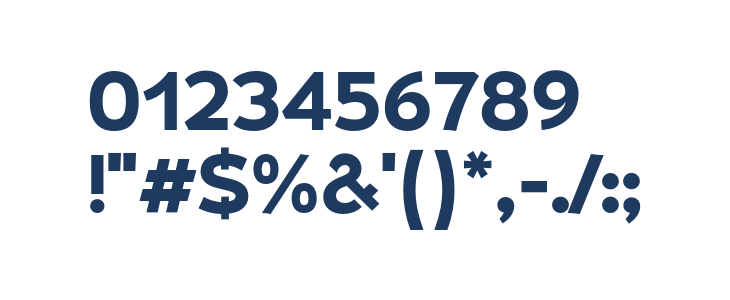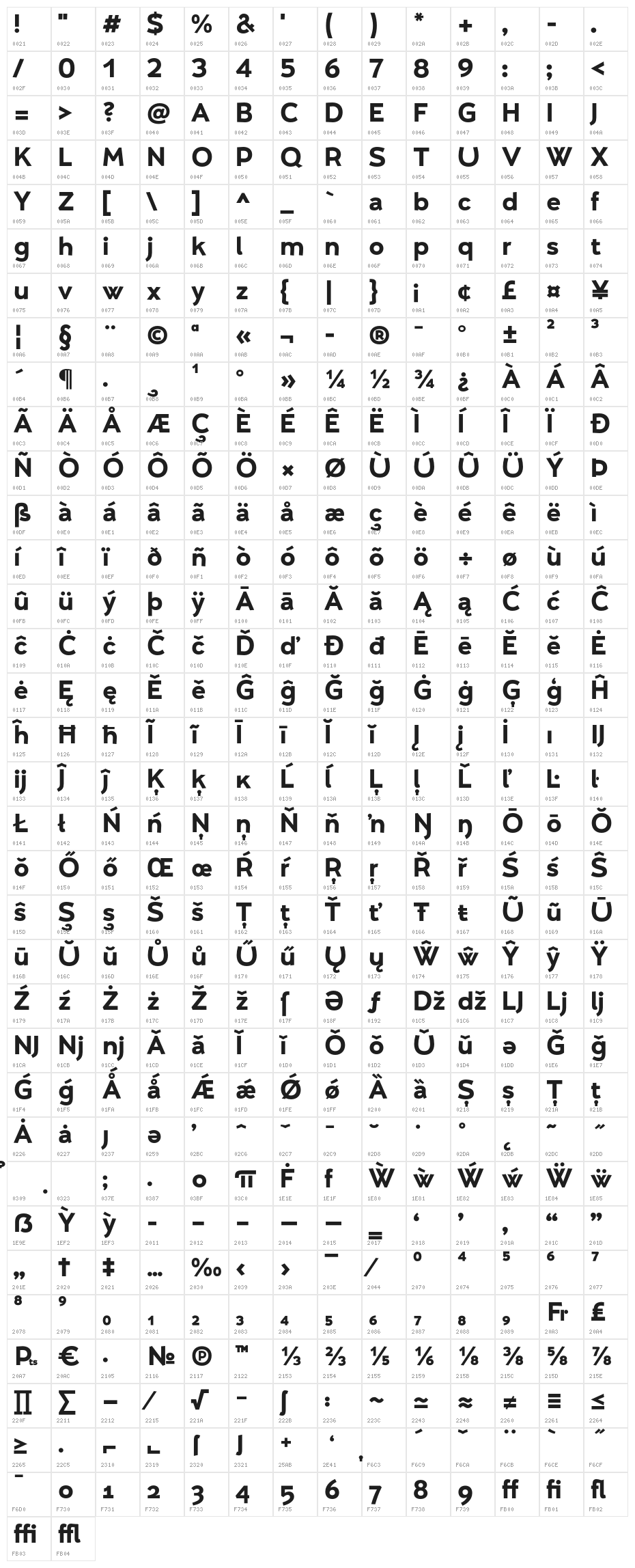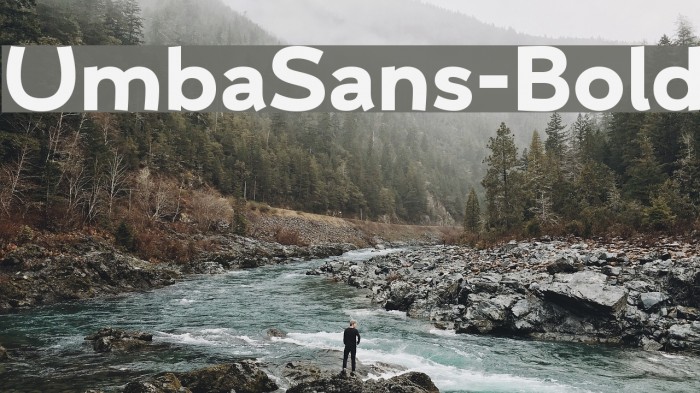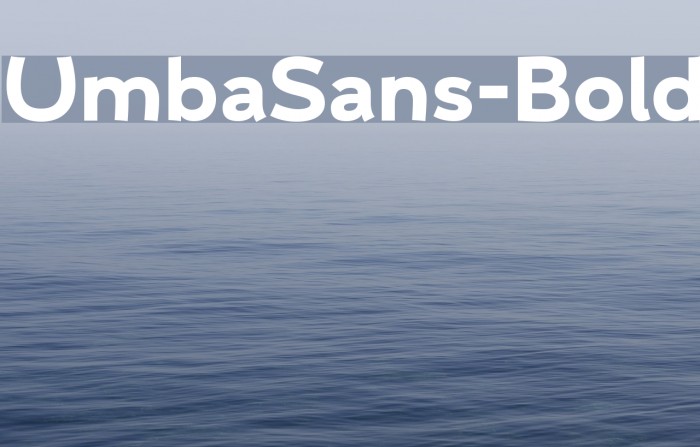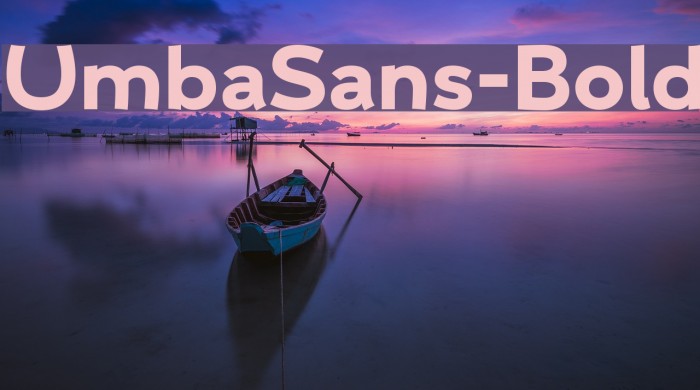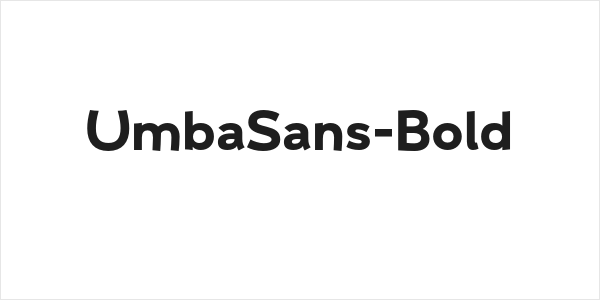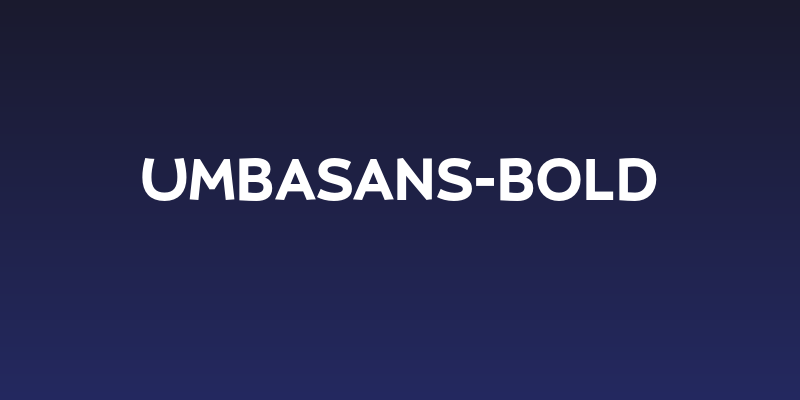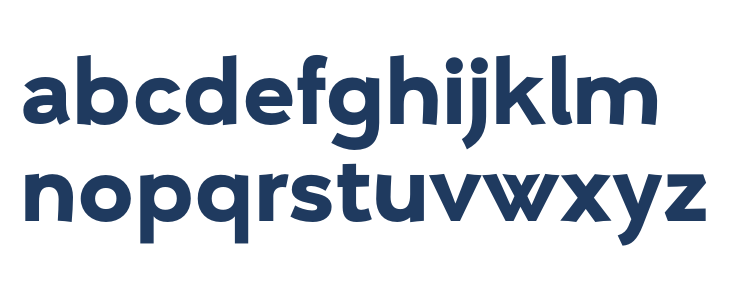
UmbaSans-Bold Font
UmbaSans-Bold Description
This font features a bold and modern sans-serif style with clean, geometric lines and a strong presence. The uppercase and lowercase letters are well-proportioned, offering a harmonious balance that enhances readability. The numerals are clear and distinct, making them suitable for various applications. Special characters are included, maintaining the font's cohesive design. The overall appearance is sleek and contemporary, making it versatile for both digital and print media.
| Proposed Projects | Ideal for branding, advertising, web design, and editorial projects where a strong, modern look is desired. |